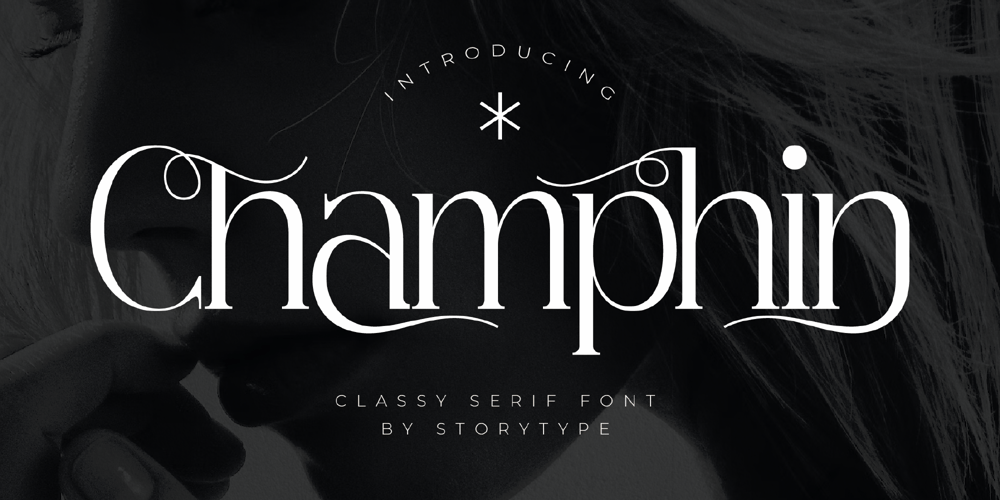
Champhin Font Family was designed by Heru Utama Putra and published by Letterena Studios. Champhin contains 2 styles and family package options. Champhin is a classic serif font with a unique style and modern look. It is perfect for elegant and luxury logos, book or movie title design, fashion brands, magazines, clothes, lettering, quotes, and so much more.